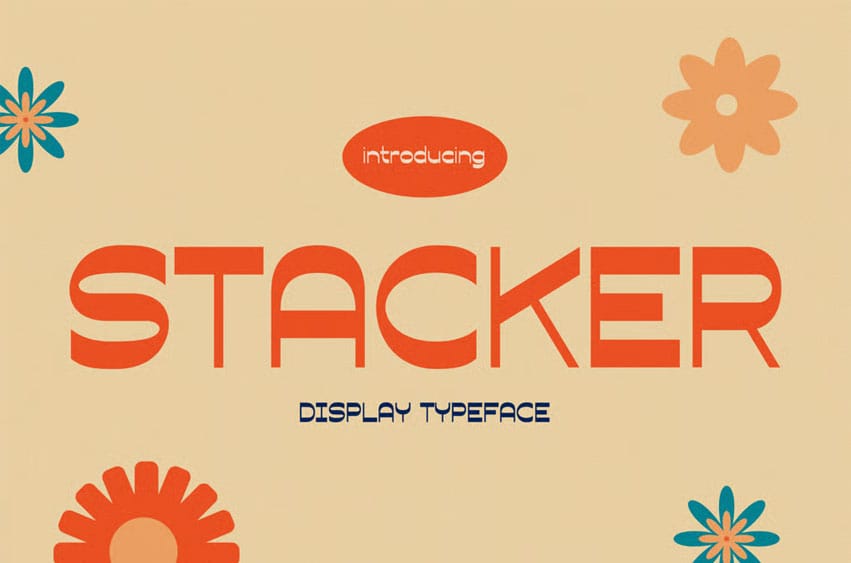
Stacker Font is a retro-groove display typeface crafted for designers seeking a long-tail solution for attention-grabbing social media visuals. Its rounded geometric forms, playful proportions, and smooth low-contrast curves give it a friendly vibe that fits perfectly within Instagram layouts, lifestyle branding, youth marketing, and colorful editorial design.
The font’s chunky letter shapes, soft edges, and expressive rhythm bring a joyful tone that naturally draws viewers in, making it ideal for brand headlines, promotional graphics, product packaging, and upbeat digital campaigns. Every character feels intentionally crafted to look bold, cheerful, and highly readable, even in busy compositions.
Designed for branding, posters, promo banners, kids-themed visuals, and social-media-first businesses, STACKER offers a visual tone that instantly delivers positivity. Its energetic flow helps designers create feel-good messaging, whether promoting a seasonal sale, crafting a store’s grand-opening layout, or shaping a playful lifestyle campaign. The letterforms create a warm emotional connection, making your message look approachable and memorable.
Key Features :
- Bold, Friendly Display Style
- Rounded geometry creates a fun, joyful mood
- Smooth curves support easy readability in large headlines
- Consistent proportions give your layout a clean, modern rhythm
- Perfect for Social-Focused Branding
- Great for Instagram posts, carousel covers, ads, and story layouts
- Ideal for product packaging, boutique logos, and event posters
- Delivers a retro aesthetic without overwhelming the design
- Designer-Ready Flexibility
- Easy to pair with minimalist layouts or vibrant color palettes
- Strong letter presence makes every message stand out
- Helps unify brand tone through consistent visual identity